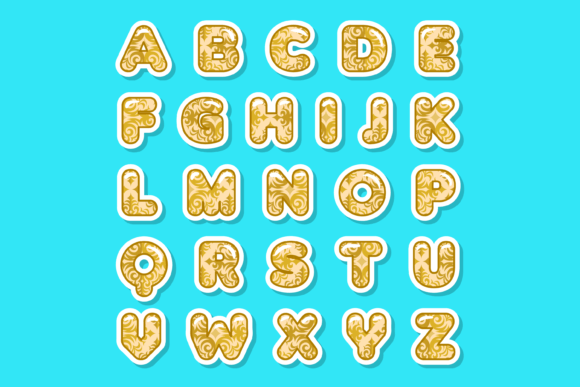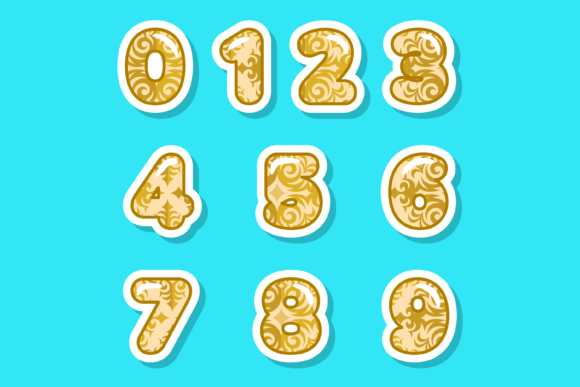
Introduction to Diadem Font
Diadem is an incredibly cool color font decorated with a fun crown pattern.
Whether you use it for custom designs, DIY crafts, or just any creation that requires a lovely touch, this font will be an amazing choice Note.
Key Features of Diadem Font